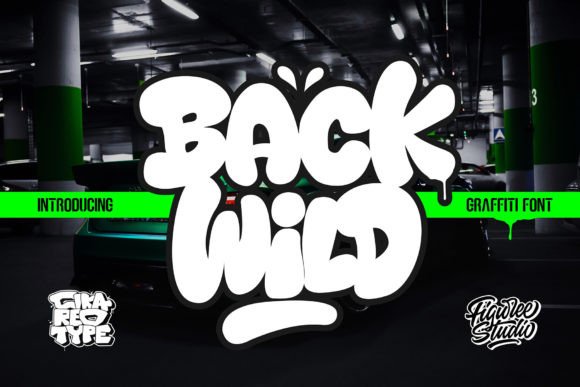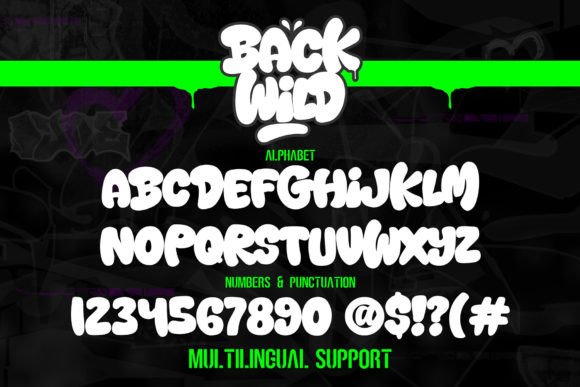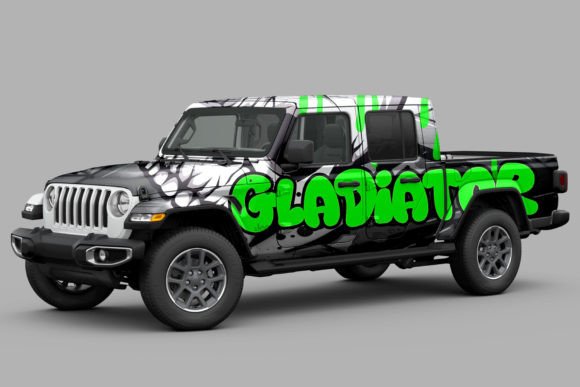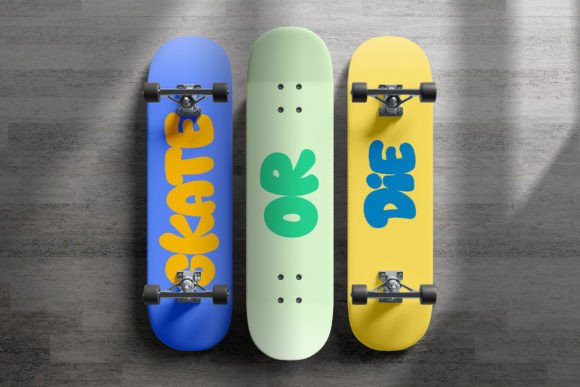
Back Wild Font: A Bold Graffiti Font for Creative DIY Projects
About the Back Wild Font
Introducing the Back Wild Font, a beautifully crafted typeface designed to elevate your creative projects. “Back Wild” is a bold and chubby graffiti font that includes swash characters. Fonts with these attributes generally feature bold and wide letterforms, often with playful and rounded elements. Swash characters add decorative and stylish touches to the font, If you have any specific questions or if there’s anything specific you’d like to know or discuss about graffiti fonts or design, feel free to ask!
“Back Wild” thrives in headline applications, short impactful statements, and branding elements where a bold, playful personality is desired. It’s ideal for posters, logos, and packaging for youthful or edgy brands, particularly those in streetwear, music, or entertainment. Avoid using it for body text or lengthy paragraphs; its chunky forms are less legible at smaller sizes.
Pairing “Back Wild” with a clean sans-serif like Open Sans for body copy provides excellent contrast. For a more sophisticated feel, consider a classic serif like Garamond or a geometric sans-serif like Futura. These pairings balance the font’s graffiti-inspired energy with enhanced readability.
The font projects a rebellious, energetic personality. Its inherent boldness makes it highly effective in grabbing attention, but its playful swashes prevent it from feeling overly aggressive. Therefore, it is best suited to projects that need a bold, yet approachable, graphic identity.
Back Wild Font Example